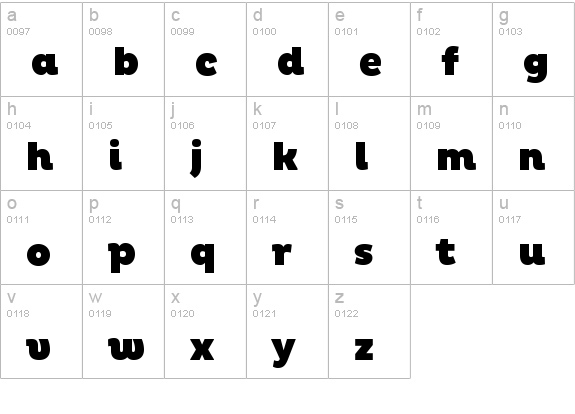
Pluto Black is a maximum-weight, dramatic variant in the Pluto typeface family \xE2\x80\x94 well suited to maximum-impact headlines, posters, and packaging.
Introducing Pluto Black font, a bold and striking typeface that demands attention with its sleek and modern design. With its strong and commanding presence, Pluto Black is perfect for making a statement in your designs. This versatile font is suitable for a wide range of projects, from branding to editorial design. Not only does Pluto Black exude sophistication and elegance, but it also offers a touch of uniqueness that sets it apart from other fonts. Its clean lines and sharp edges give it a contemporary edge that will make your designs stand out. And the best part? Pluto Black is completely free to download at FontsMarket.com. So go ahead and add this stunning font to your collection today and elevate your designs to the next level.